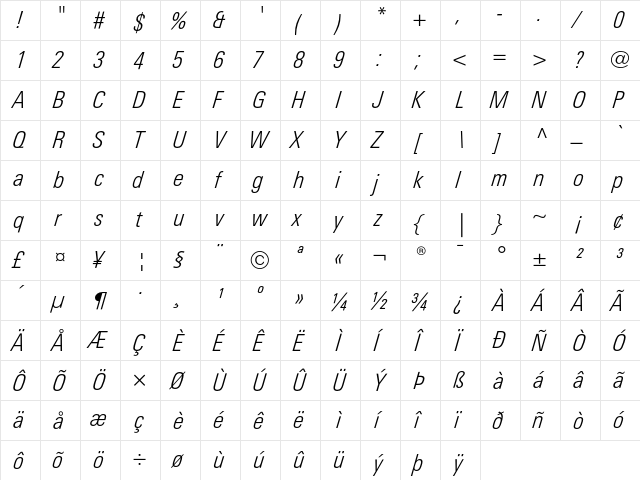
LinotypeUnivers CondLightItalic Font Preview
Design Context for LinotypeUnivers Typeface
LinotypeUnivers offers clean, dependable letterforms without strong stylistic allegiance, making it a practical choice for designers who need flexibility. The dynamic lean of this cut emphasises speed and emphasis in any layout. Its slender proportions lend an understated elegance to any composition. Its narrow stance lets it pack a punch even in space-constrained designs.
Pro Tip: Use LinotypeUnivers for emphasis, pull quotes, and subheadings where its slanted energy can add rhythm to the layout.